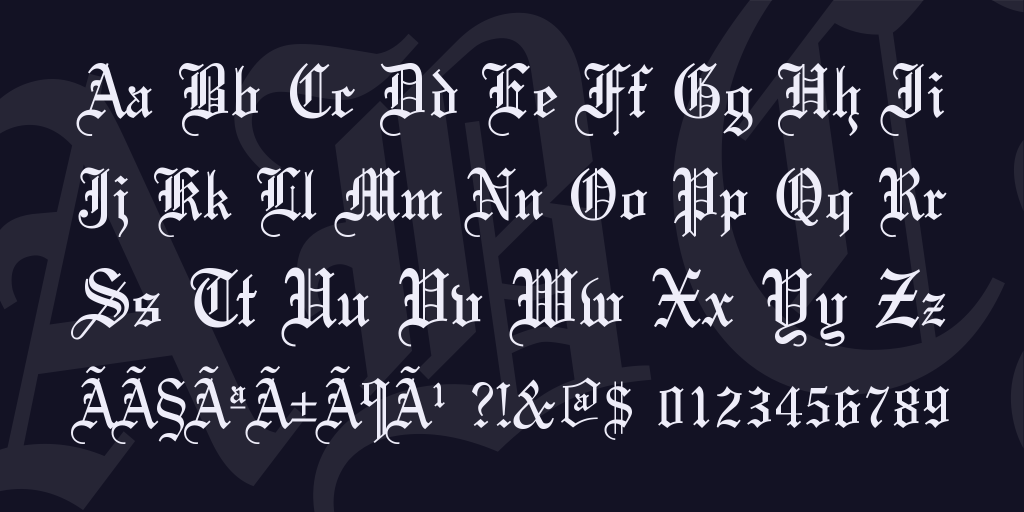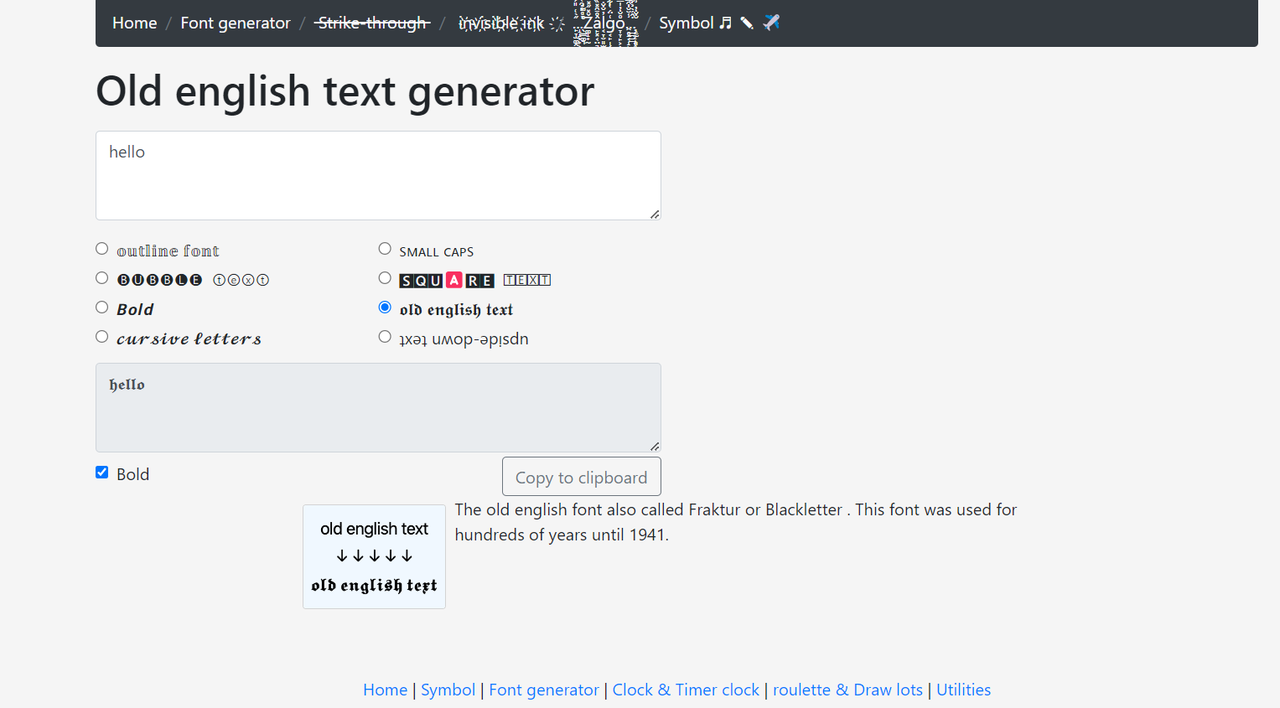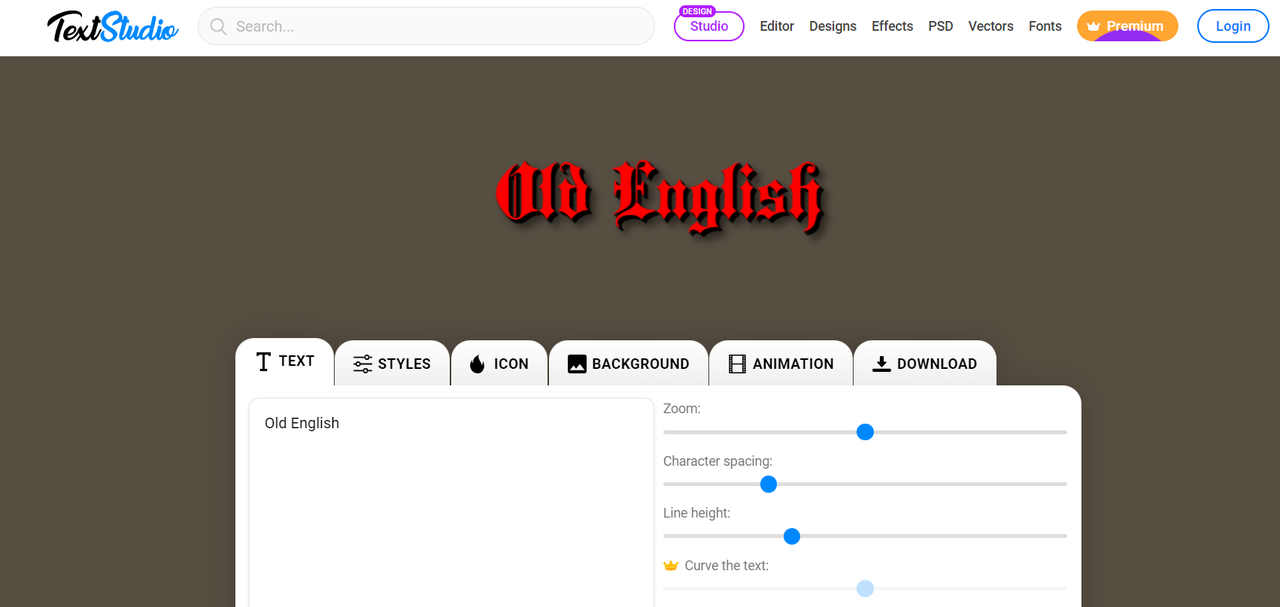
Best Old English Font Generators for Vintage Design Projects
Ever wanted to make your designs look super classy and timeless? Maybe you’re designing wedding invites, a poster for an event, or just want your social media posts to stand out. That’s where an old English font generator comes in super handy! These tools can totally transform your projects, giving them that elegant, vintage vibe that everyone loves. Let’s dive in and check out how these generators work and which ones are the best!
Why you should use an old English font generator
So, why are these generators such a big deal for designers? Well, for starters, they make it super easy to get those fancy old-style fonts without needing to be a calligraphy expert. You don’t have to spend hours learning how to draw each letter perfectly—just type in your text, and boom! You’ve got beautiful lettering.
Another great thing is how much time they save. Instead of creating each letter by hand, you can generate your text in seconds. This is awesome when you’re working on a tight deadline and need to get things done fast.
Customization is another huge plus. A lot of these generators let you tweak the size, style, and spacing of the fonts. That means you can make the text look exactly how you want it to for your specific project.
And let’s not forget inspiration! Sometimes, you might feel stuck and not sure how to make your design pop. Browsing through different old English fonts can give you cool ideas and help you create something that looks both historical and super sophisticated.
Why old english font text generator
Whether you’re just starting out or you’ve been designing for years, using an old English font generator can really level up your work. It’s an easy way to make your designs look professional and stylish.
The top 5 old English font generators you should try
Font Meme
Font Meme is a great place to find a wide variety of old English fonts. It’s super user-friendly—you can preview how your text will look before you even download anything. This is perfect if you’re looking for something classic and elegant without any hassle.
Font Meme old english font writer
One of the best things about Font Meme is its huge selection of fonts. You’ll definitely find something that fits your style. Plus, the interface is really easy to navigate, so you won’t get lost trying to figure out how things work. And yes, it’s totally free!
FontSpace
FontSpace old text font generator
FontGet
FontGet offers a diverse range of old English fonts that are perfect for all sorts of design needs. The site is simple to navigate, and you can easily find and download high-quality fonts.
FontGet old english font creator
One of the standout features of FontGet is that you can customize the font color, background color, and size right on the site. This is super helpful if you want to see how the font will look in different contexts. Plus, it’s free to use!
But like FontSpace, there’s no online text generation tool. You need to download the font to see how your text will look. Also, the customization options are somewhat limited compared to some other generators.
Piliapp
If you need to generate old English text quickly, Piliapp is a fantastic choice. It has an online text generator that’s really easy to use, and you can see your text in real-time as you type.
Piliapp old english font maker
Piliapp offers unique text templates and effects that can make your designs stand out. The best part? You don’t need to download anything—you can generate and copy your text right from the site. And yes, it’s free!
The downside is that the font selection is a bit limited compared to other sites. Also, the customization options are pretty basic, so you might not have as much control over the final look.
Text Studio
Text Studio is perfect if you’re looking for high-quality, polished text effects. It offers advanced customization features and produces really professional-looking results. This is ideal for creating logos or other designs where you want the text to really shine.
Text Studio old english text creator
Text Studio has tons of customization tools, so you can tweak your text until it’s perfect. The output is high-quality, and the interface is user-friendly. It’s great for creating stunning visuals.
However, some of the advanced features require payment, so you might need to spend a bit to get the most out of it. Also, the free options are somewhat limited.
How old English fonts make your designs look amazing
Old English fonts have a way of making designs feel special and sophisticated. They bring a sense of history and authenticity that really resonates with people. Think about the Corona Extra logo—its bold, stylized lettering instantly makes you think of tradition and quality. Using fonts like this in your designs can make them look more professional and timeless.
If you’re creating videos, using old English fonts can make your content more visually appealing. But to really make your videos pop, you need a powerful editing tool like CapCut Desktop. It helps you combine beautiful fonts with awesome video effects for a truly stunning result.
How old English fonts shine in design
No matter what you’re designing, an old English font generator can help you achieve that classic, elegant look with ease.
Using CapCut to add old English fonts to your videos
CapCut is an amazing video editing tool that’s packed with features to make your videos look professional. It has a huge library of fonts, including plenty of old English styles, so you can find the perfect look for your project.
CapCut- helper of old font generator
One of the best things about CapCut is its rich library of text effects. You can choose from vintage and medieval-inspired styles that complement old English fonts perfectly. The easy layering and positioning tools let you place text exactly where you want it, and you can add animations to make your text dynamic and engaging.
How to use CapCut’s font features
First, upload your video to CapCut. You can drag and drop your files directly into the editor or import them from your computer. If you have custom old English fonts, you can upload them to Space for easy access.
CapCut old text font generator
Next, head to the “Text” tab to explore all the font options. You can choose from CapCut’s extensive library or use your uploaded fonts. Use the layering and positioning tools to place your text perfectly, and add animations to make it stand out.
CapCut old text font generator
Finally, export your video. CapCut lets you customize all the settings, like resolution and format, so you get exactly what you need. Then, share your video on platforms like YouTube or TikTok to show off your awesome design skills!
CapCut old english font generator and translate
Using CapCut with an old English font generator is a game-changer for video creators. The combination of beautiful typography and powerful editing tools makes it easy to produce stunning, professional-looking videos.
CapCut — Your all-in-one video & photo editing powerhouse! Experience AI auto-editing, realistic effects, a huge template library, and AI audio transformation. Easily create professional masterpieces and social media viral hits. Available on Desktop, Web, and Mobile App.
capcut-redefine-creation
Download App | Sign Up for Free
Wrapping up
So there you have it—a complete guide to the best old English font generators out there! Each tool has its own strengths, whether you’re looking for something quick and easy like Piliapp or more advanced like Text Studio. And when it comes to adding these fonts to your videos, CapCut is the way to go. It’s packed with features that make it easy to create stunning visuals.
Don’t stress about how to create the perfect font—just try out these generators and let CapCut work its magic. Your designs will thank you!
CapCut — Your all-in-one video & photo editing powerhouse! Experience AI auto-editing, realistic effects, a huge template library, and AI audio transformation. Easily create professional masterpieces and social media viral hits. Available on Desktop, Web, and Mobile App.
capcut-redefine-creation
Download App | Sign Up for Free
FAQs
What should I look for in an old English writing generator?
Look for a generator that offers a variety of font styles, easy customization options, and high-quality output. CapCut is a great choice because it includes all these features and more, making it easy to add old English fonts to your videos.
Are there any free old English text generators?
Yes! Font Meme and Piliapp both offer free options. But if you want a tool that does more than just generate text—like integrating fonts into videos—CapCut is free to use and has tons of powerful features.
How do I pick the best old English text maker?
Think about what you need: lots of font choices, ease of use, customization, and good output quality. For videos, CapCut is awesome because it has a huge font library, is easy to use, and produces high-quality results. It’s not just for text—it’s a full video editing tool that makes your projects look amazing.